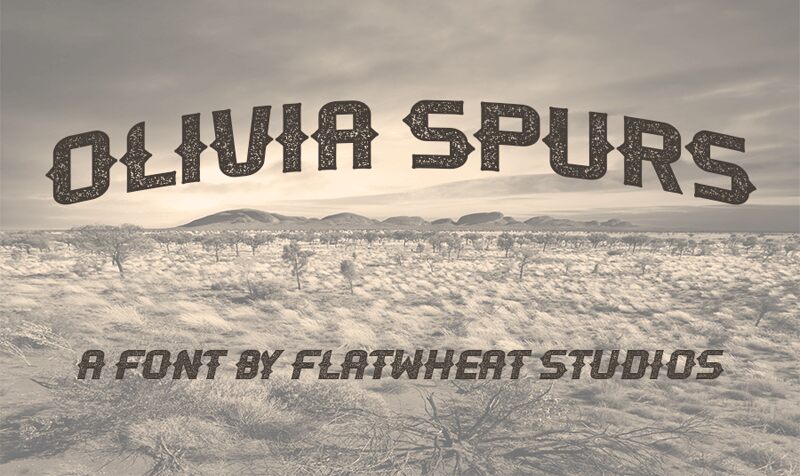
Olivia Spurs is a captivating display font that exudes a distinct sense of ruggedness and character. Designed by FlatWheat Studios, this typeface boasts an eroded, time-worn aesthetic that immediately commands attention. The irregular, distressed letterforms lend an air of gritty authenticity, evoking a bygone era and evoking a range of potential applications, from vintage-inspired branding to bold editorial design.
Olivia Spurs' versatility shines through its ability to convey a range of moods, from the weathered allure of the American West to the industrial edge of urban environments. Its striking visual impact makes it an ideal choice for headlines, titles, and other prominent design elements, where its powerful presence can truly shine.